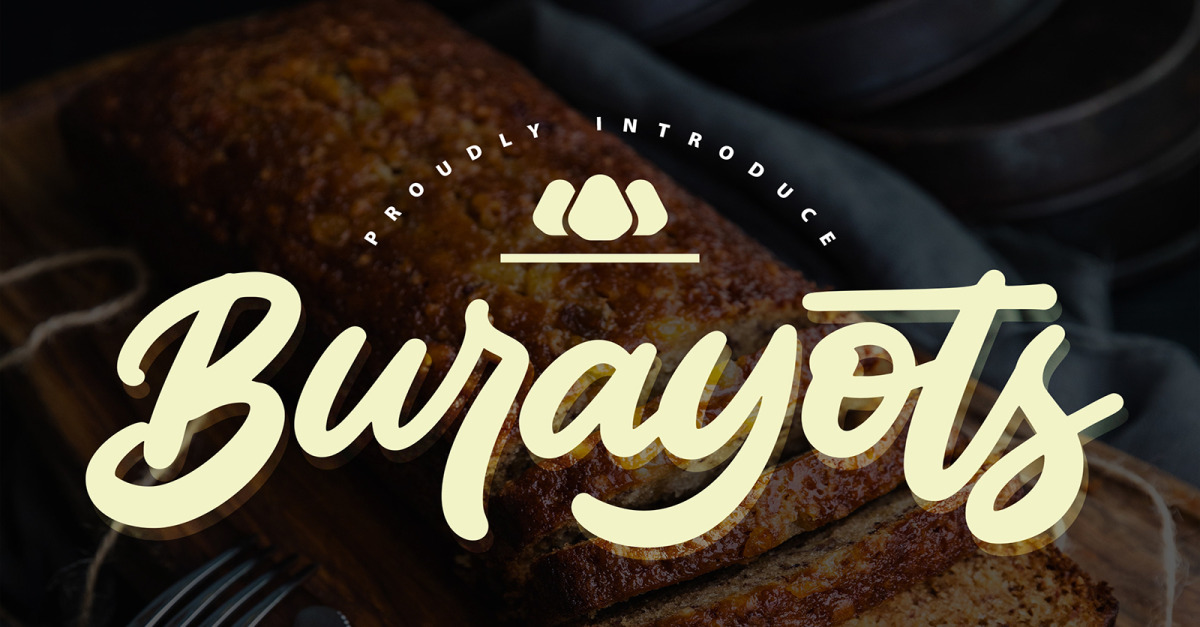
Burayots | Handwriting Cursive Font
**Burayots | Handwriting Script Font** with a calligraphy style, So beautiful on invitation like greeting cards, branding materials, business cards, quotes, posters, and more!